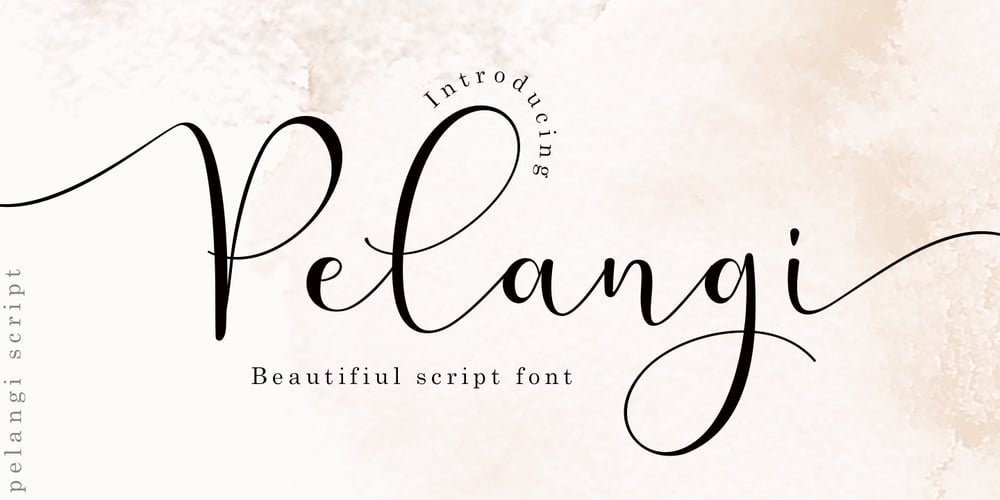
Pelangi script
Pelangi script font
Pelangi script Font Family was designed by Nasrullah and published by Sulthan Studio. Pelangi script contains 1 styles and family package options. Pelangi script is a natural handwritten font in the best style, with curves that are very beautiful in view, will be very suitable for your template, such as:greeting cards, branding materials, business cards, quotes, posters and more!Pelangi script – includes many alternative characters. Coded with Unicode PUA, which allows full access to all additional characters without having special design software. Mac users can use Font Book. Windows users can use the Character Map to view and copy one of the additional characters to paste into your favorite text editor. For people who have opentype-capable software: Alternatives can be accessed by turning on the “Alternative Style” and “Ligature” buttons on the Photoshop Character panel, or through any software with the glyph panel, e.g. Adobe Illustrator, Photoshop CC, Inkscape.